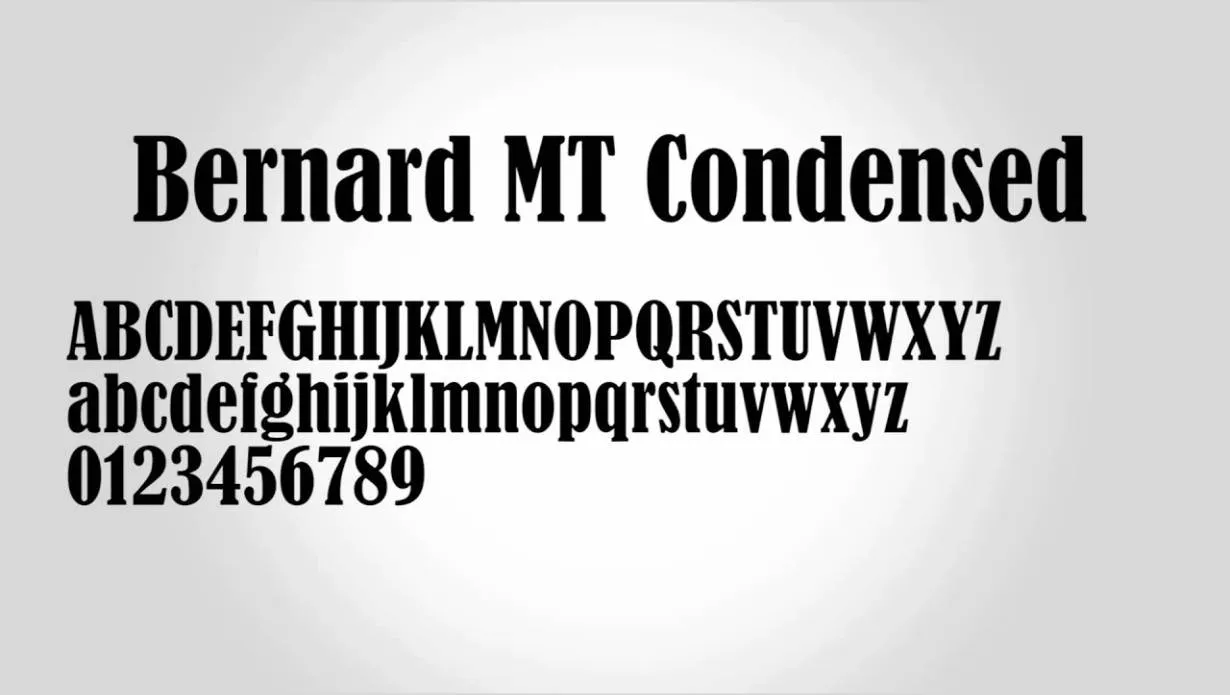
Bernard MT Condensed is a classic slab serif font designed by Lucian Bernhard in 1937. With its bold and condensed letterforms, it exudes a timeless charm, making it an excellent choice for headlines and titles. The font is renowned for its ability to create a strong visual impact while maintaining an elegant appearance.
View of Bernard MT Condensed Font
Bernard MT Condensed Font Info
| Name | Bernard MT Condensed Font |
| Designer | Monotype Type Drawing Office |
| Style | Serif |